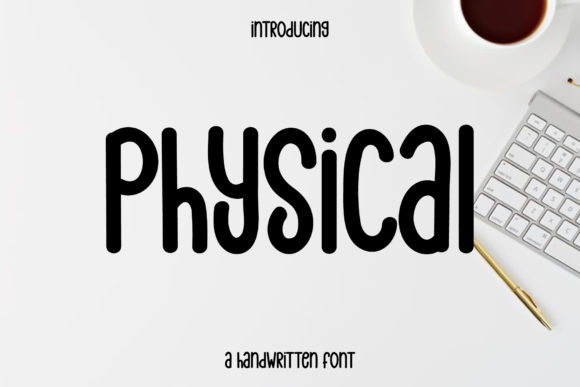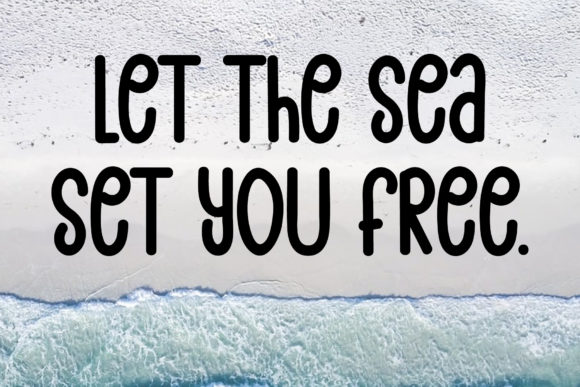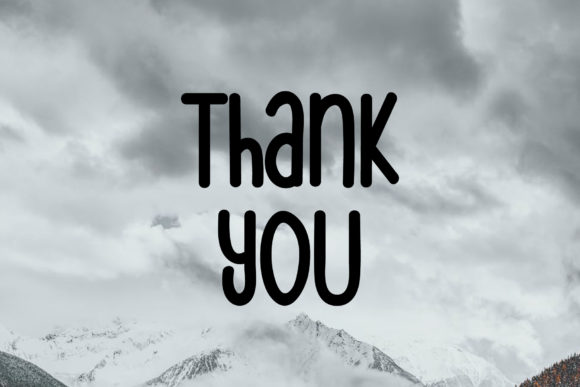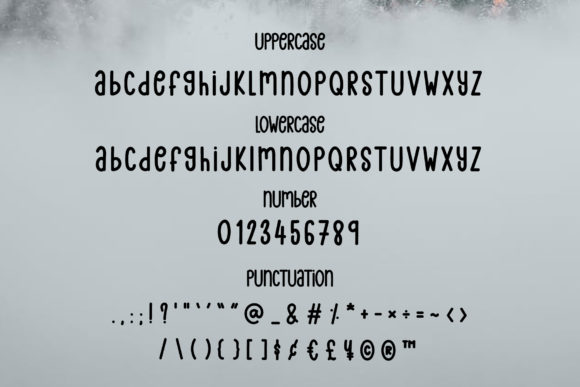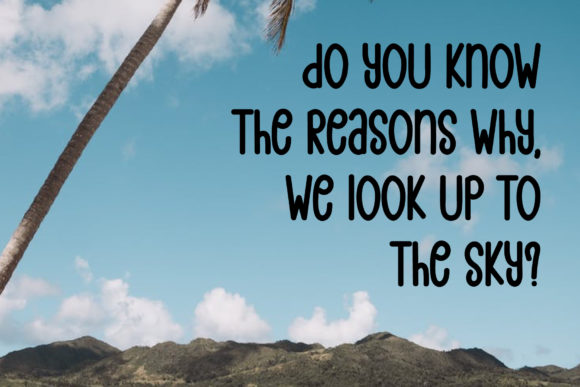
Physical Font
About Physical Font
Physical is a sweet and simple handwritten font. Its natural and unique style makes it incredibly fitting to a large pool of designs.